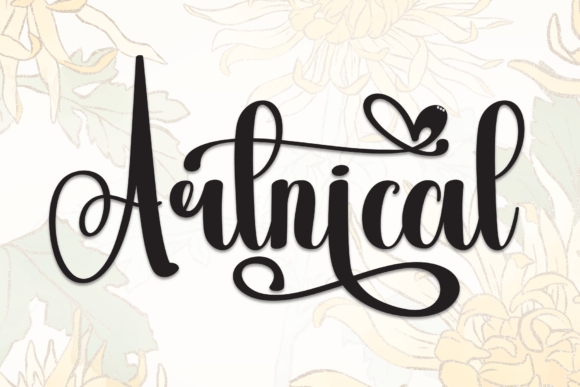
Adding a Touch of Elegance with Artnical Font
Have you ever stared at a blank page, trying to come up with the perfect design concept for a special project? For many creatives, this moment is all too familiar. As we search for inspiration, we often find ourselves drawn to beautiful typography – the perfect combination of style and substance that can elevate our work from ordinary to extraordinary.
Enter Artnical Font, a stylish handwritten script font that exudes elegance and charm. Its fluid strokes and natural flow create a captivating, sophisticated look that’s perfect for adding a personal touch to invitations, branding, or social media. Whether you’re a seasoned designer or just starting out, Artnical Font is a valuable tool that can bring a sense of warmth and creativity to any design.
Artnical Font Key Features
- Font Family: Artnical Font comes in two font families: Regular and Bold.
- Character Set: Supports a wide range of characters, including Latin, Cyrillic, and Greek alphabets.
- Unique Characteristics: Artnical Font features a unique blend of modern and vintage elements, with intricate details and subtle texture.
Artnical Font Review
I’ve had the chance to work with the Artnical font, and overall, it’s a beautiful addition to any design project. ✨ The font’s unique blend of elegant and modern elements makes it perfect for creating visually striking headlines and titles. It’s especially great for luxury or high-end branding, as it conveys a sense of sophistication and refinement.
One of the things I love about Artnical is its wide range of weights and styles, making it incredibly versatile. ✨ From light and airy to bold and dramatic, there’s a version of this font to suit any design need. The font also includes a variety of swashes and ligatures, which add an extra layer of elegance and sophistication to any text.
- ⚠️ Limited support for certain languages: Unfortunately, Artnical doesn’t include support for many languages, which can be a major limitation for designers working on projects that require multi-language support.
- ⚠️ Not ideal for body text: While Artnical is perfect for headlines and titles, it’s not the best choice for body text. The font can be quite ornate, which can make it difficult to read at smaller sizes.
Overall, I think Artnical is a great addition to any designer’s toolkit. While it may have some limitations, its unique style and versatility make it a great choice for a wide range of design projects.
Tips for Getting the Most Out of Artnical Font
Use Artnical Font for creative projects, such as invitations, posters, and social media graphics.
Combine Artnical Font with other creative fonts to add visual interest to your designs.
Artnical Font is ideal for:
1. Creative projects, such as invitations, posters, and social media graphics.
2. Branding and marketing materials, such as logos and business cards.
3. Digital publications, such as eBooks and magazines.
Alternatives to Artnical Font
Pacifico is a beautiful, elegant script font that works well for invitations, wedding stationery, and other creative projects. It’s perfect for designers who want to add a touch of sophistication and romance to their designs.
Comparison to Artnical Font: Pacifico has a more delicate and refined feel compared to Artnical Font’s bold and playful vibe. While Artnical Font is great for modern and edgy designs, Pacifico is better suited for more traditional and classic designs.
Great Vibes is a modern script font that’s perfect for designers who want to add a touch of fun and playfulness to their designs. It’s great for creating eye-catching headlines, social media graphics, and other digital content.
Comparison to Artnical Font: Great Vibes has a more relaxed and casual feel compared to Artnical Font’s bold and edgy vibe. While Artnical Font is great for creating bold statements, Great Vibes is better suited for creating a more laid-back and approachable tone.